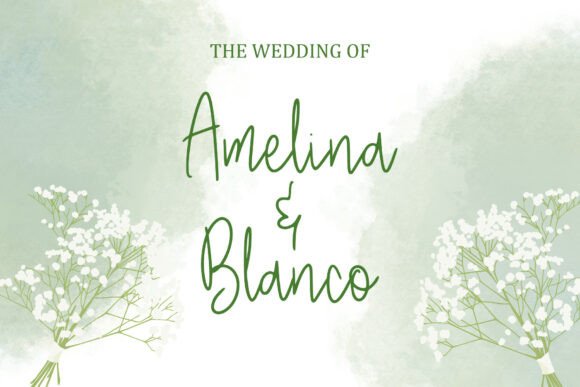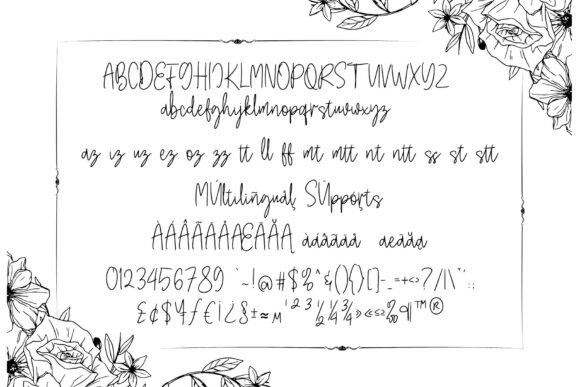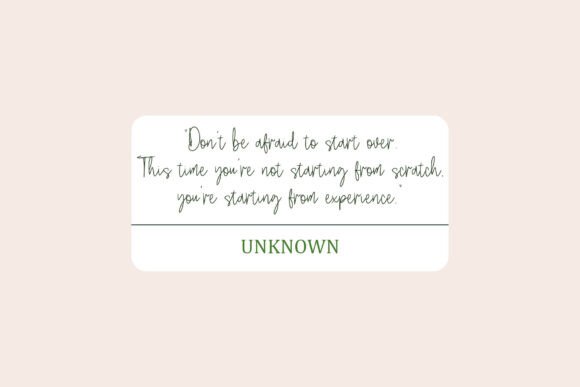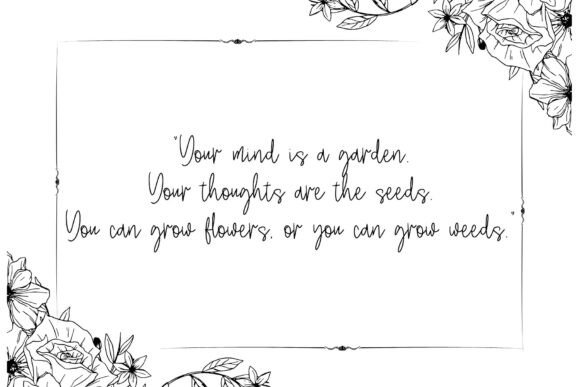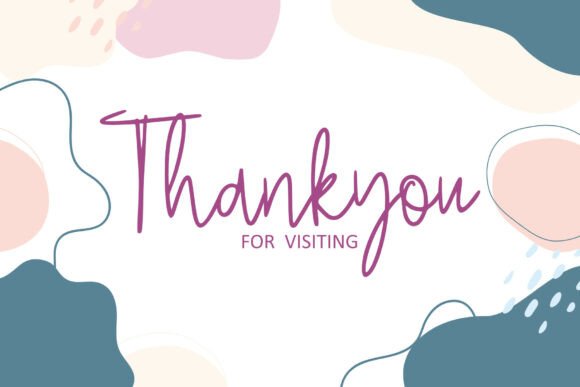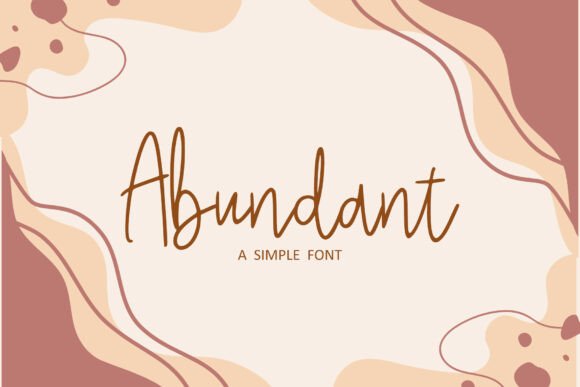
The Elusive Perfect Font: My Encounter with Abundant Script Font
I still remember the countless hours I spent searching for the perfect font for a wedding invitation project. My client wanted something elegant, sophisticated, and unique. I scrolled through font after font, but nothing seemed quite right. That was until I stumbled upon Abundant Script Font. Its beautiful swirls and intricate loops immediately caught my eye, and I knew I had found the one. In this article, I’ll share my experience with Abundant Script Font, its features, and how to make the most of it in your designs.
Abundant Script Font: A Closer Look
Abundant Script Font is a stunning typeface that exudes sophistication and elegance. Its refined cursive style makes it perfect for invitations, branding, greeting cards, and more. One of the standout features of this font is its PUA (Private Use Area) encoding, which provides seamless access to all special characters and decorative elements without the need for additional design software.
Honest Review: What I Love and What I Don’t
The Good ✨
- ✅ Elegant and sophisticated design
- ✅ Fully PUA encoded for easy access to special characters
- ✅ Refined cursive style perfect for formal and informal designs
- ✅ Highly versatile and adaptable to various design projects
The Not-So-Good 🤔
- ⚠️ Some users may find the font a bit challenging to read in large blocks of text
- ⚠️ Limited availability of bold or heavy weights, which may not be suitable for all designs
The Story Behind Abundant Script Font
Abundant Script Font was designed by a talented typographer who wanted to create a font that would evoke the feeling of luxury and sophistication. Inspired by traditional calligraphy and modern script fonts, the designer carefully crafted each letterform to ensure a smooth, flowing look. The result is a beautiful typeface that adds a touch of elegance to any design.
Q: Is Abundant Script Font suitable for large blocks of text?
A: While Abundant Script Font is beautiful and elegant, it may not be the best choice for large blocks of text. Its refined cursive style is better suited for shorter texts, such as headings, titles, and captions.